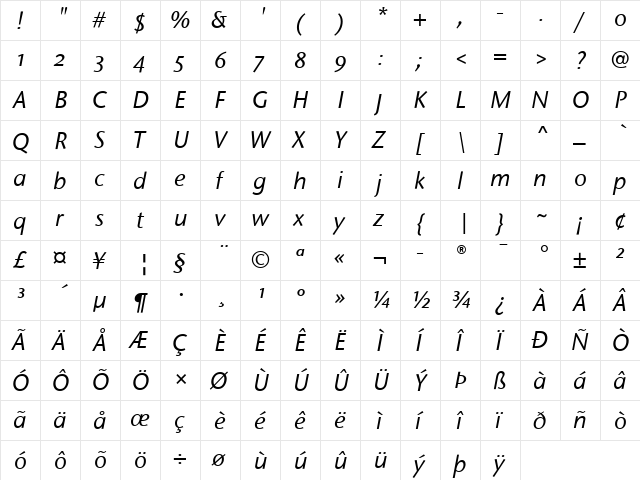
StoneSansOSITC Medium Italic
Design Context for StoneSansOSITC Typeface
StoneSansOSITC offers clean, dependable letterforms without strong stylistic allegiance, making it a practical choice for designers who need flexibility. Its italic angle brings a sense of urgency and motion to the letterforms.
Pro Tip: Try StoneSansOSITC for annotation and caption copy alongside an upright companion — the contrast in angle creates a dynamic but ordered typographic system.